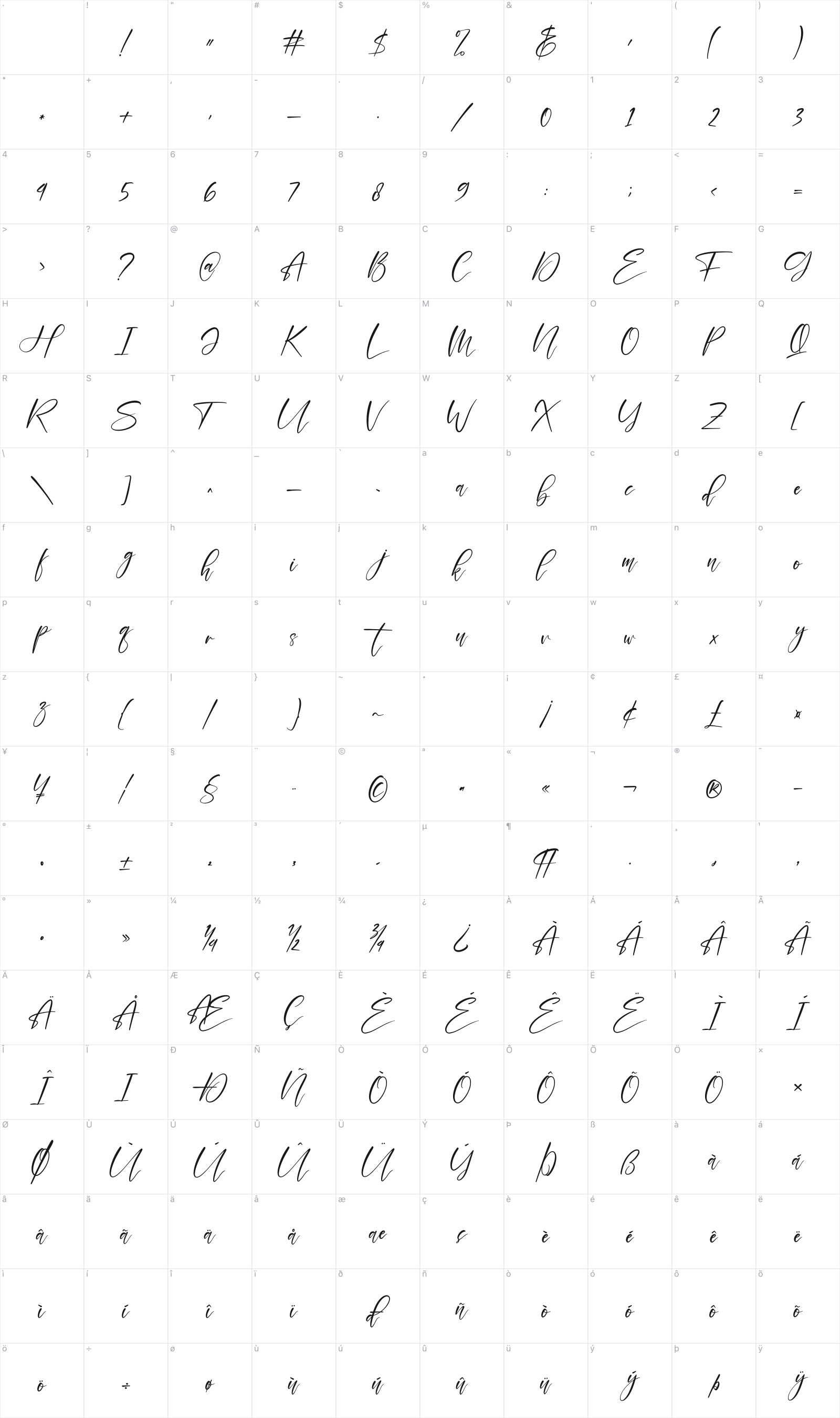
Rizky Broline
Rizky Broline is a flowing casual script with the energetic, ink-swept quality of modern hand calligraphy. Thin hairline strokes contrast against slightly heavier downstrokes, and long connective swashes give words a dancing, airy rhythm. It suits wedding stationery, beauty branding, and any project that needs handwritten warmth with a polished finish.